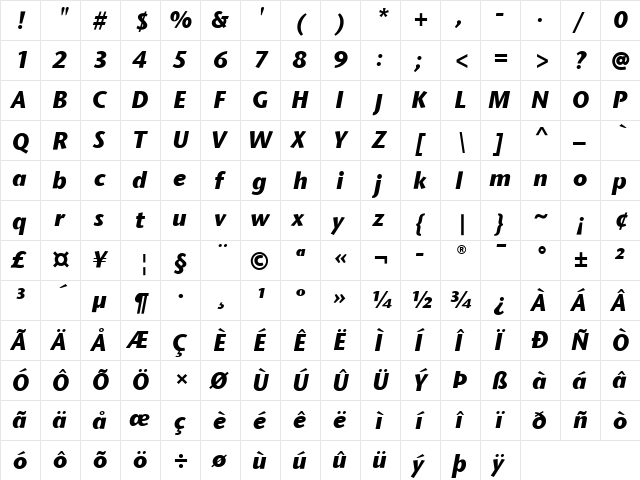
Stone Sans ITC Medium Bold Italic Font Preview
Design Context for Stone Sans ITC Medium Typeface
Stone Sans ITC Medium is a composed and adaptable typeface that performs quietly and consistently across a wide range of design contexts. Its italic angle brings a sense of urgency and motion to the letterforms. The heavy weight commands attention and anchors typographic hierarchies.
Pro Tip: Try Stone Sans ITC Medium for annotation and caption copy alongside an upright companion — the contrast in angle creates a dynamic but ordered typographic system.